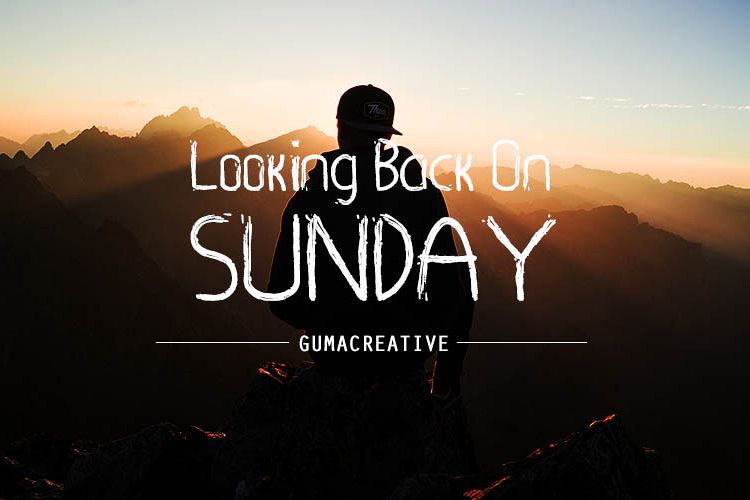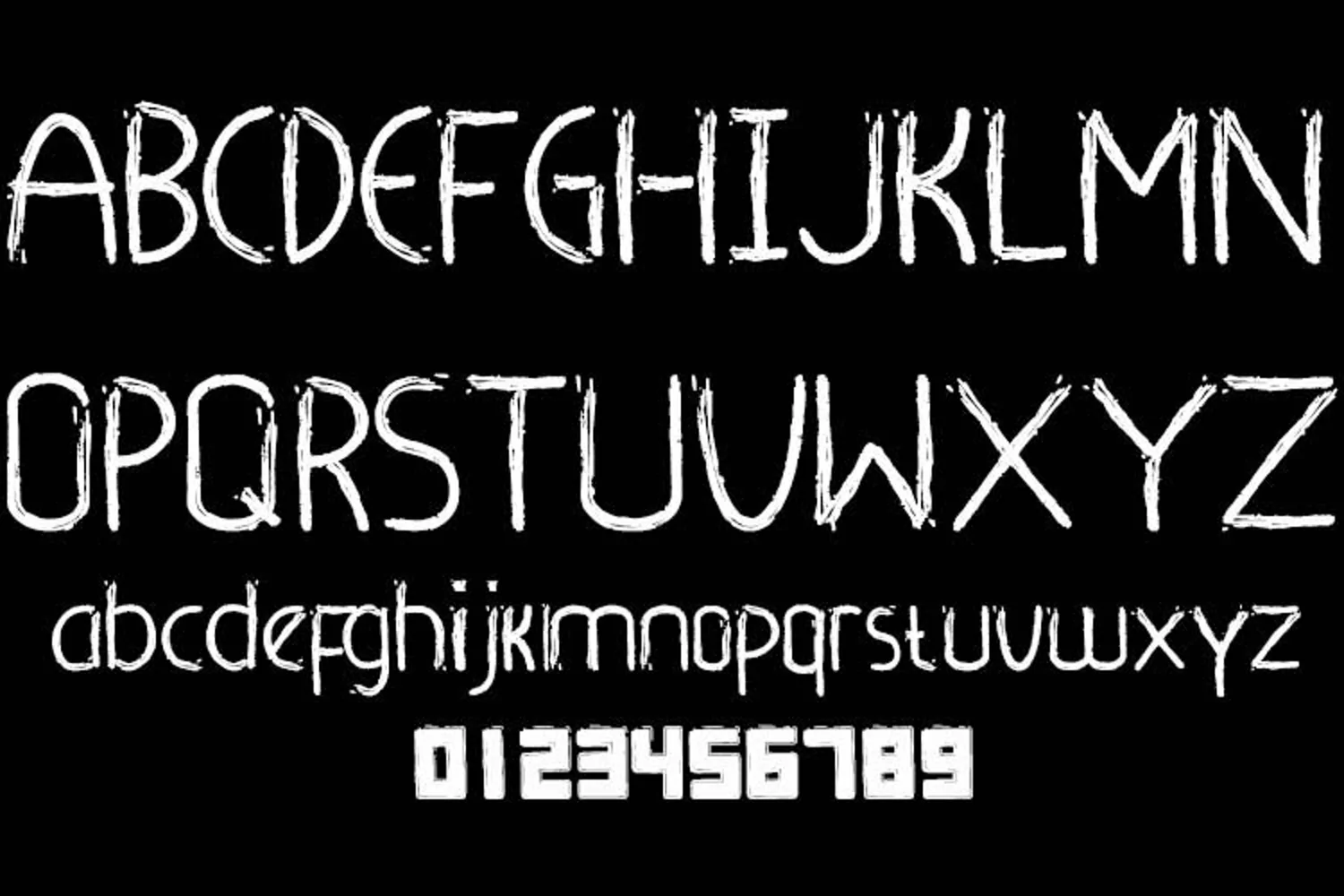
Masura Font
by Gumacreative
Hey there, Here is a brush font called MASURA. it's mean like writing text with a little brush. well, i hope you like it.